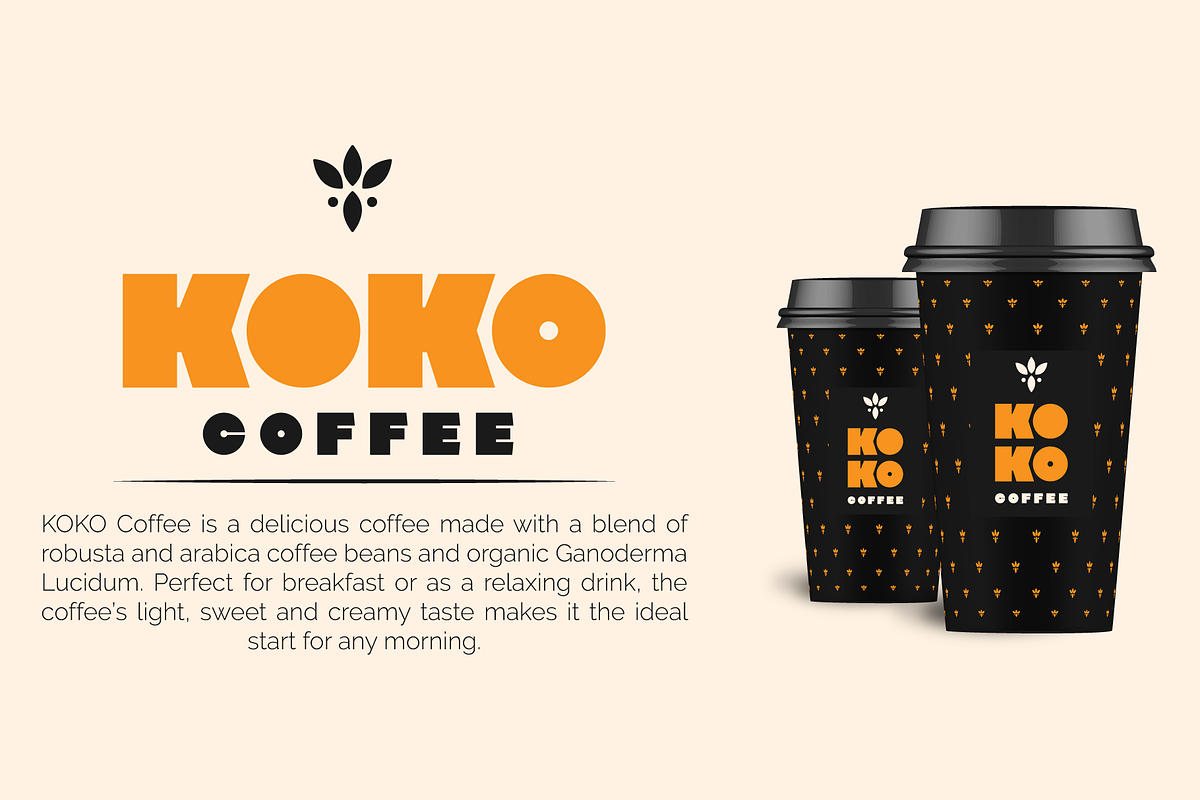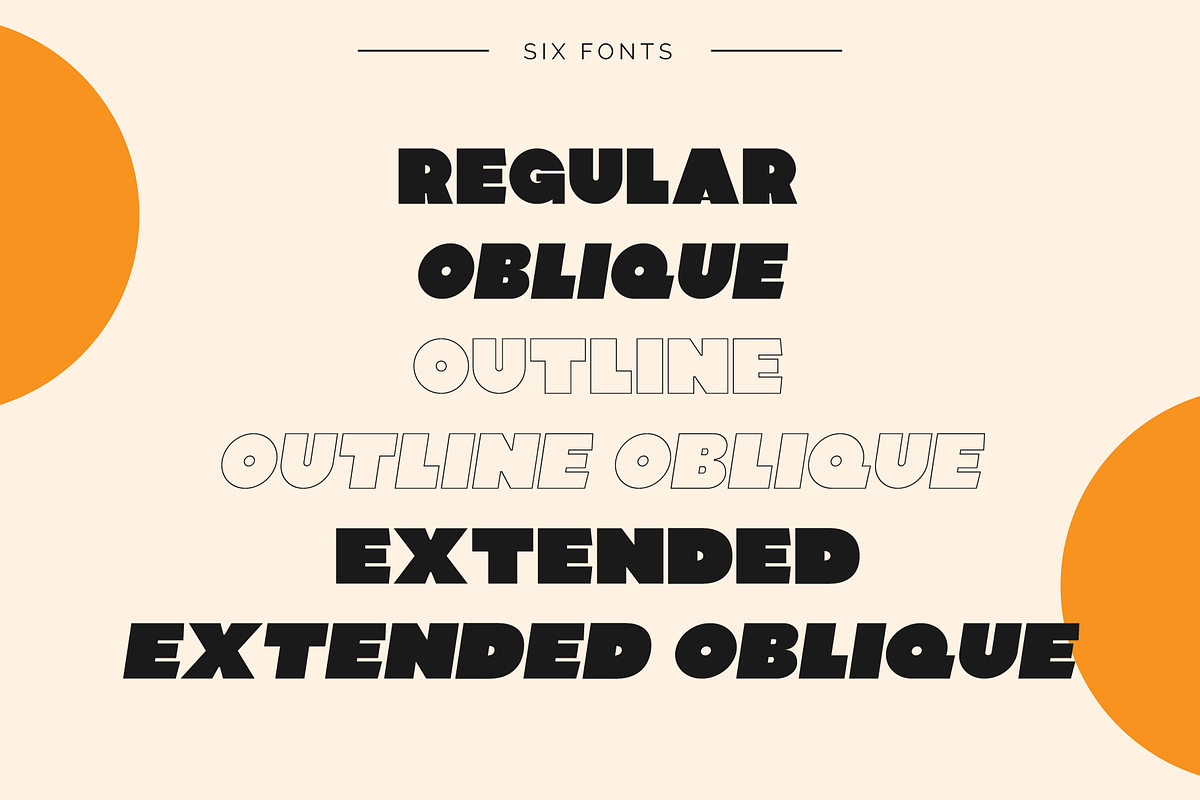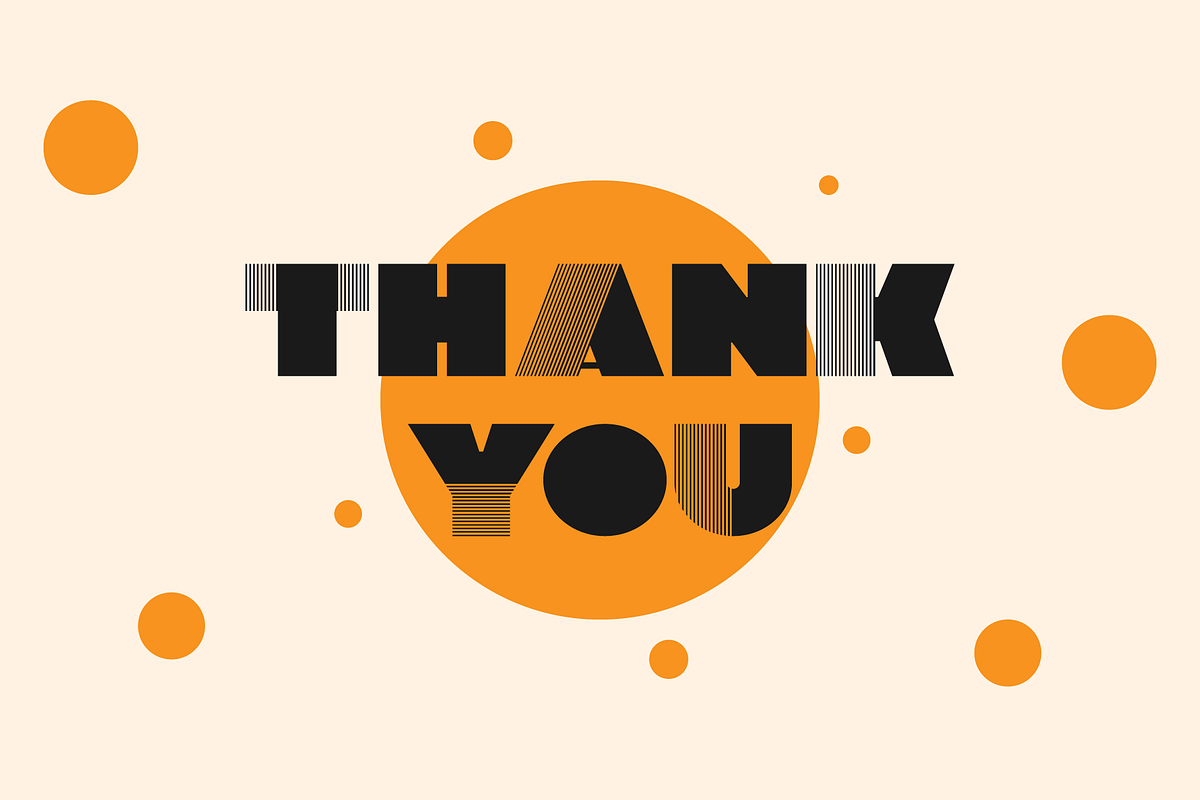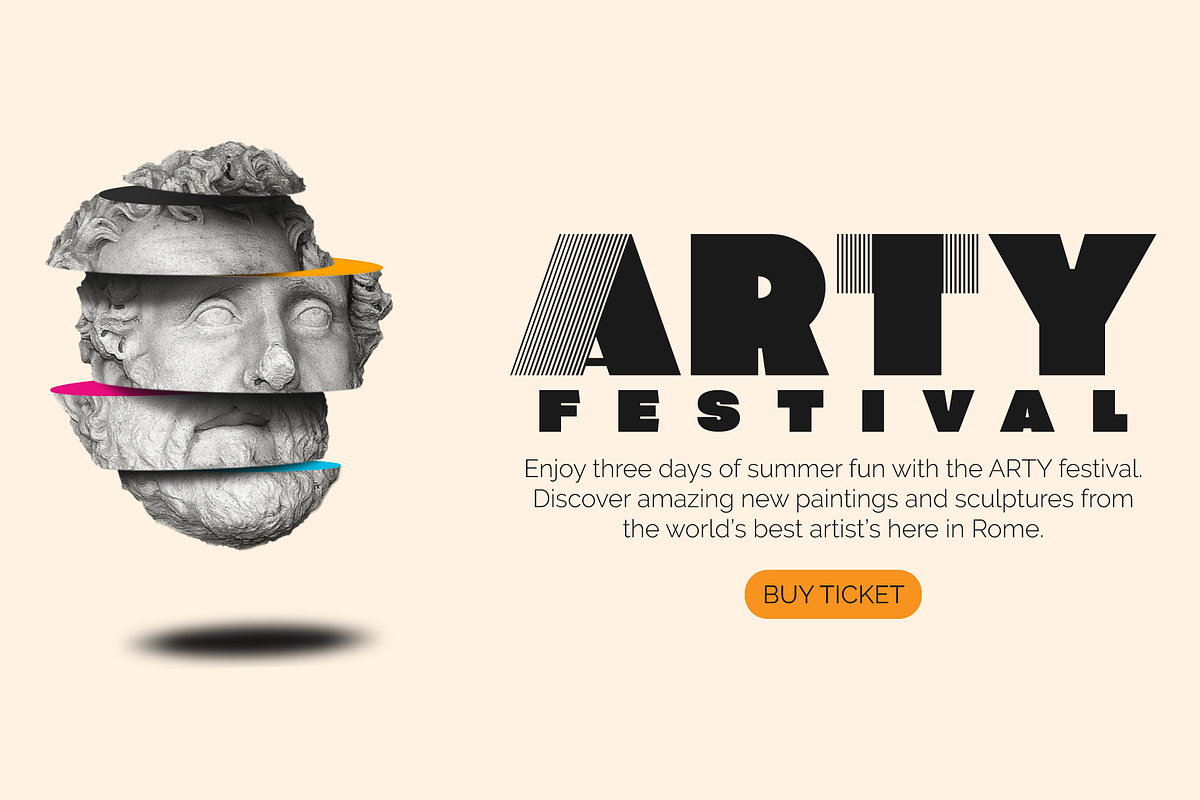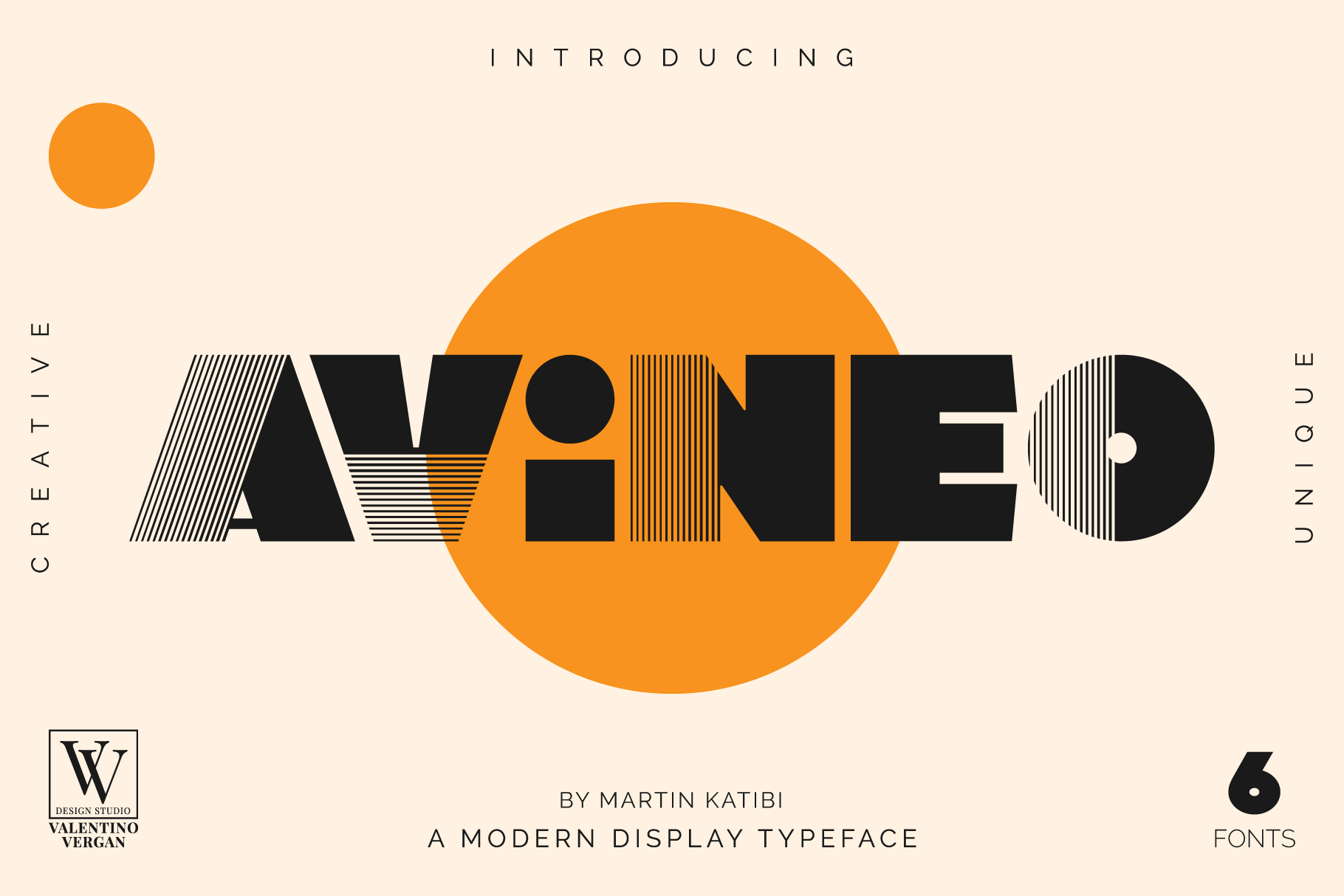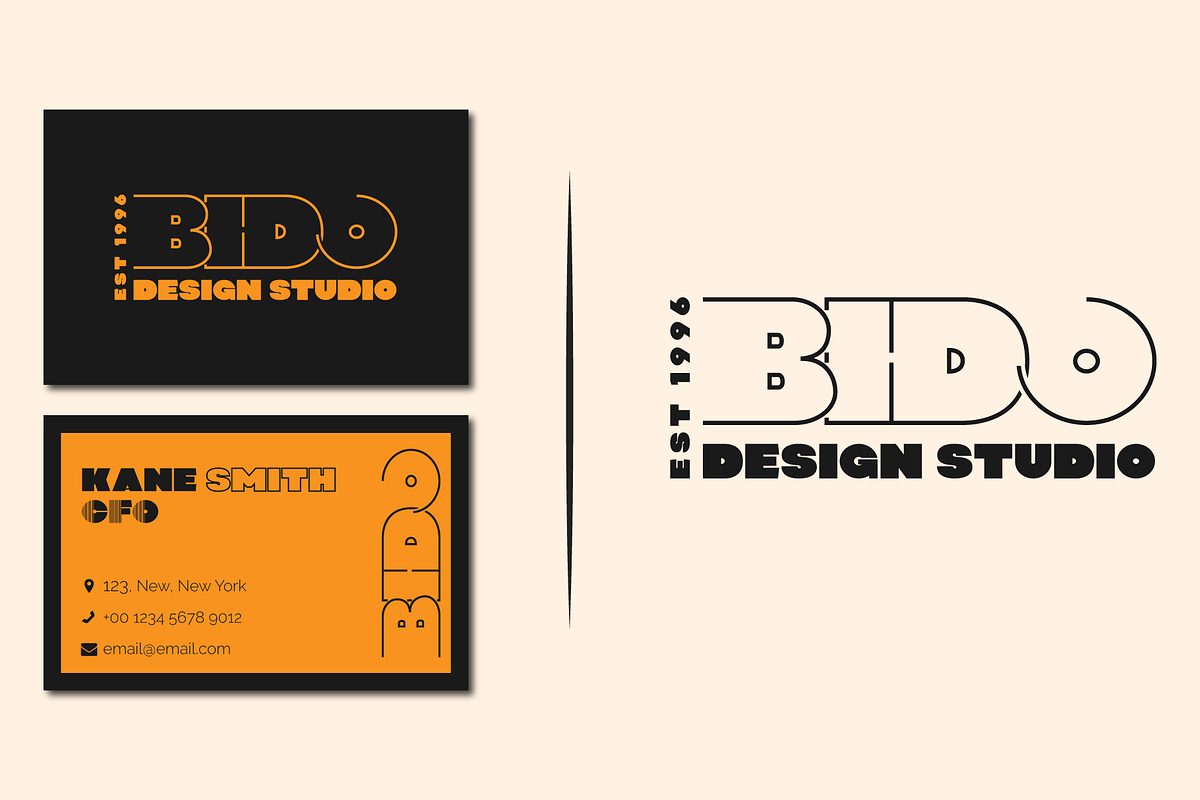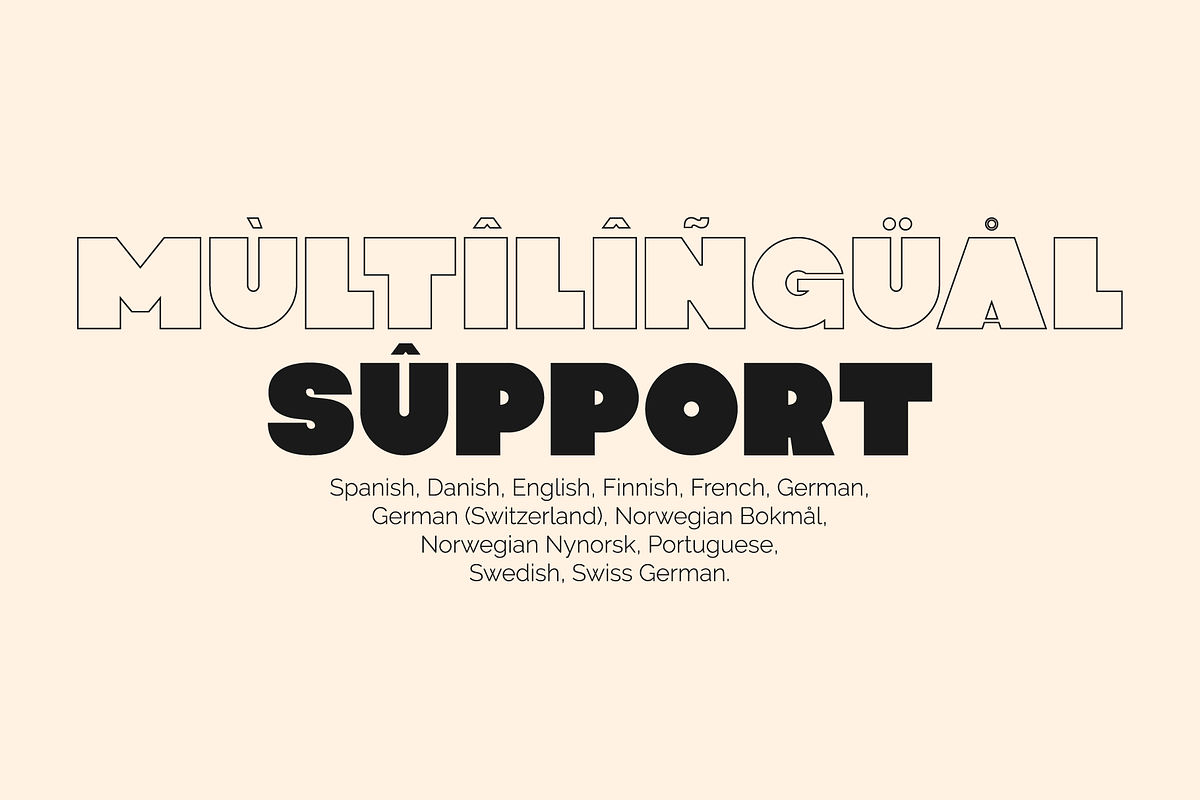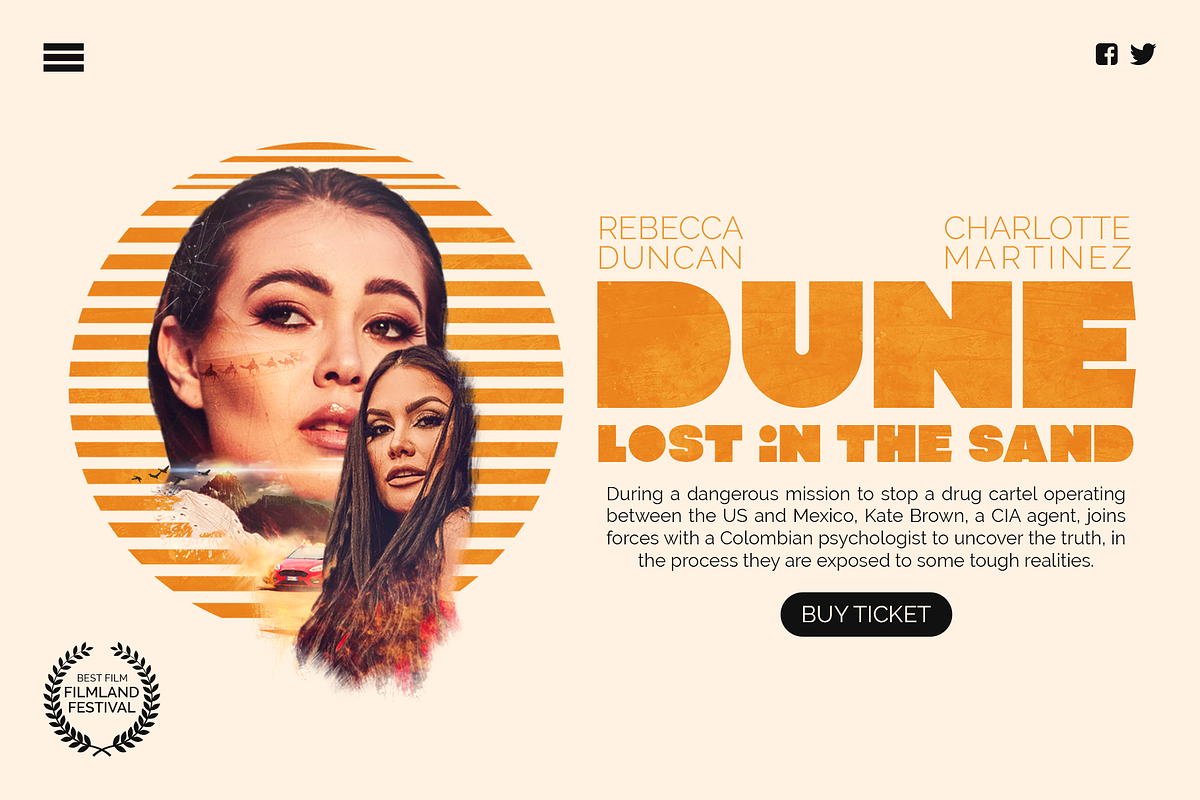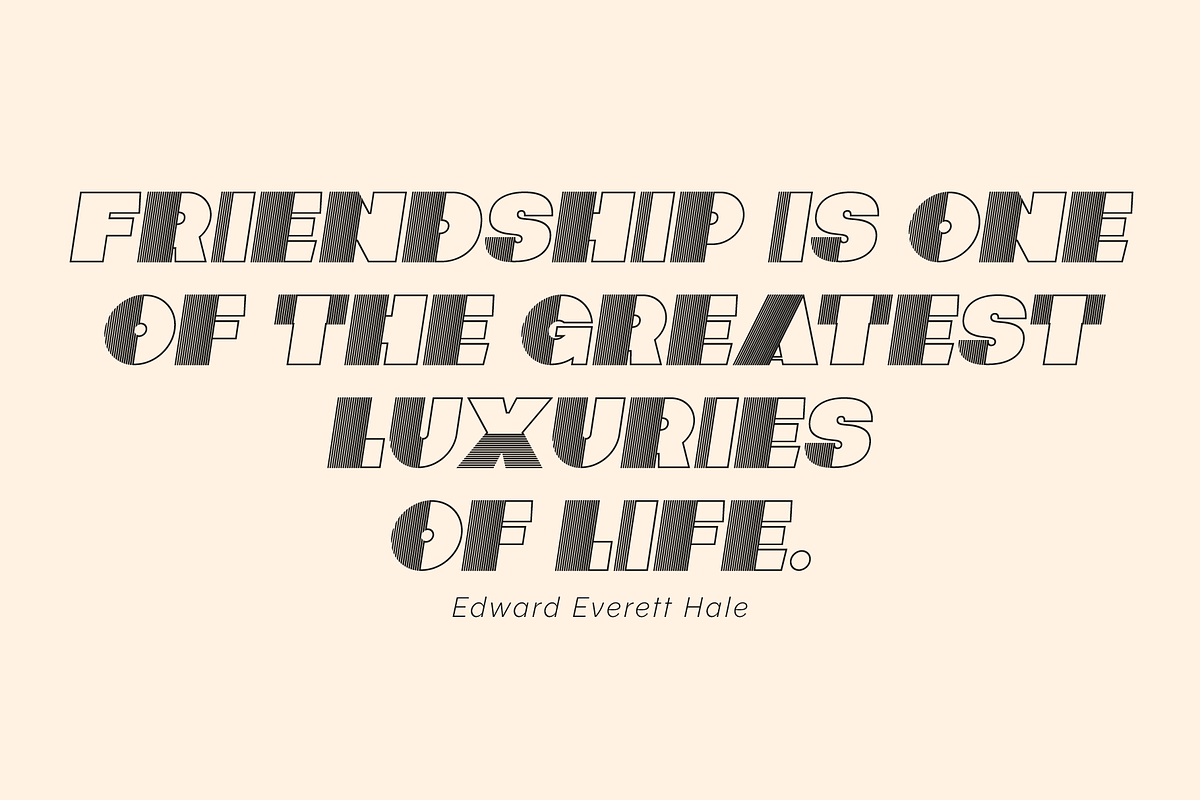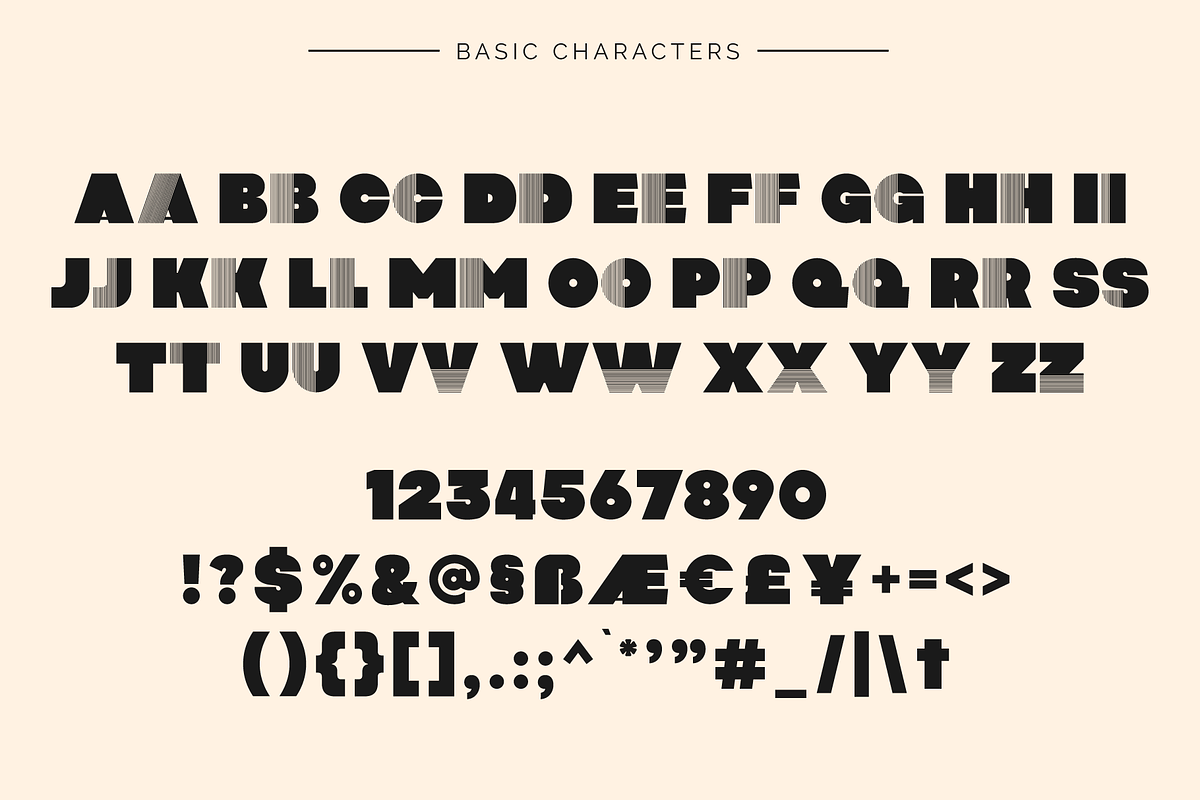
Avineo - Unique Display Typeface
Avineo is a unique modern display typeface, which comes with a set of creative lowercase characters. The Avineo typeface has an ultra-fat look, which makes it perfect for logo and poster design. The Avineo typeface also comes in three styles, Regular, Outline and Extended, each style has an oblique version.
The Avineo typeface comes with multilingual support for languages such as: Danish, English, Finnish, French, German, German (Switzerland), Norwegian Bokmål, Norwegian Nynorsk, Portuguese, Spanish, Swedish, Swiss German.
The Avineo typeface has a unique design, which will make your next project standout. The Avineo typeface can cover a wide range of projects such as: brand packaging, brochures, magazines, logos, posters, flyers, book covers, quotes, branding, billboards, social media, pictograms and much more.
If you are looking for something unique, bold and creative for you next project, the Avineo typeface is the font for you.
AVINEO INCLUDES A FULL SET OF:
- Uppercase and lowercase letters.
- Numbers.
- Punctuation.
- Ligatures.
- Alternates.
- Multilingual Symbols.